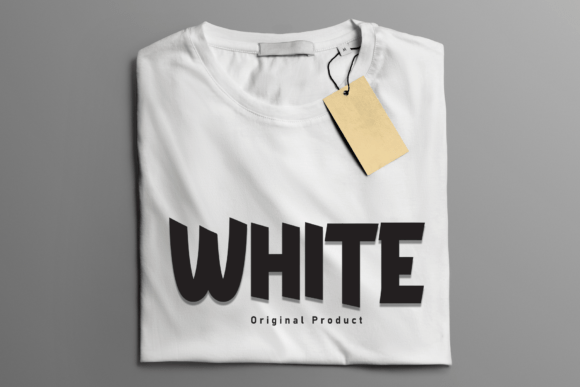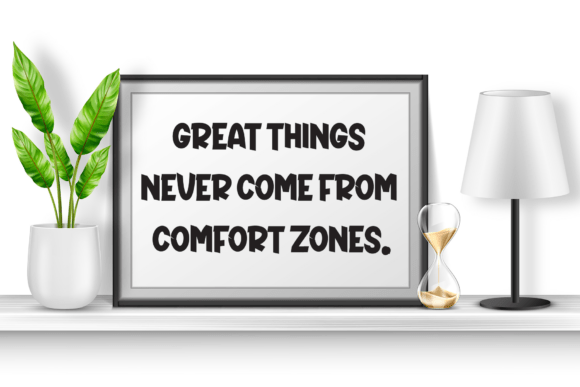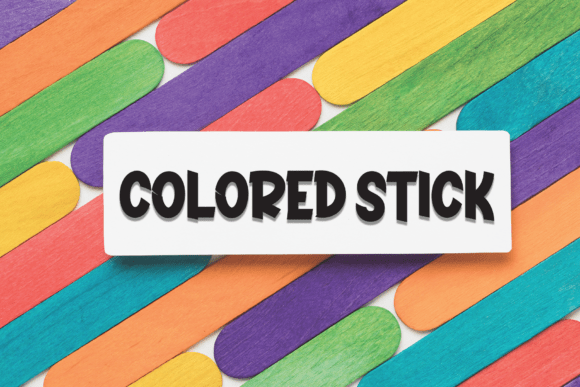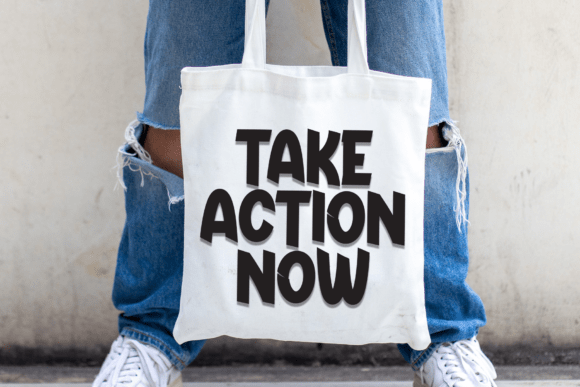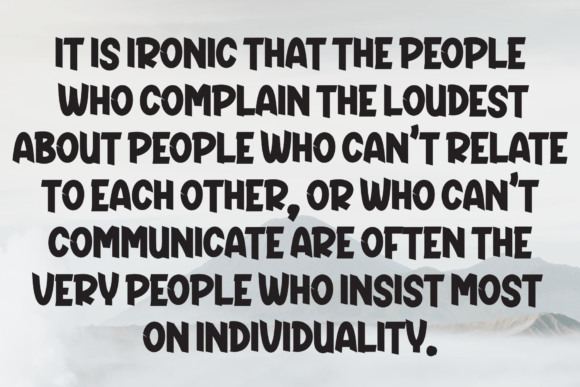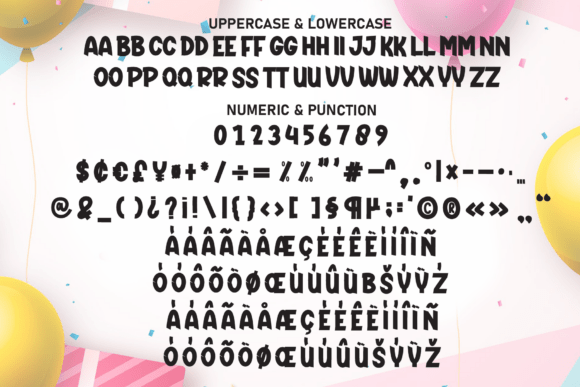
Introducing Happy Birthday Font: The Perfect Handwritten Display Font for Your Designs
Are you tired of using the same old fonts for your designs? Do you want to add a touch of personality and charm to your work? Look no further than Happy Birthday Font, a lively and full-of-personality display handwritten font that’s perfect for bold, eye-catching designs. In this article, we’ll take a closer look at what makes Happy Birthday Font so special and how you can use it to elevate your designs.
A Font that Brings the Charm of Natural Handwriting
Happy Birthday Font is a handwritten display font that brings the charm of natural handwriting to your designs. Its playful curves and casual style make it perfect for a variety of applications, from logos and posters to packaging, quotes, and social media graphics. With Happy Birthday Font, you can add a friendly, handcrafted feel to your work that’s sure to capture the attention of your audience.
Perfect Balance of Readability and Character
One of the standout features of Happy Birthday Font is its perfect balance of readability and character. The font is designed to be easy to read, even at larger sizes, making it perfect for headlines and titles. At the same time, it has a unique and playful character that adds personality to your designs. Whether you’re creating a logo, poster, or social media graphic, Happy Birthday Font is the perfect choice.
Happy Birthday Font is incredibly versatile and can be used for a wide range of design projects. Here are just a few ideas to get you started:
- Logos: Use Happy Birthday Font to create a unique and memorable logo for your business or brand.
- Posters: Create eye-catching posters for events, promotions, or advertising campaigns.
- Packaging: Add a personal touch to your product packaging with Happy Birthday Font.
- Quotes: Use Happy Birthday Font to create inspiring and motivational quotes for social media or print.
- Social Media Graphics: Create engaging social media graphics that stand out from the crowd.
Why Choose Happy Birthday Font?
So why choose Happy Birthday Font for your designs? Here are just a few reasons:
- Unique and Playful: Happy Birthday Font is a one-of-a-kind font that’s sure to add personality to your designs.
- Easy to Read: The font is designed to be easy to read, even at larger sizes.
- Versatile: Happy Birthday Font can be used for a wide range of design projects.
- Handcrafted Feel: The font has a friendly, handcrafted feel that’s perfect for adding a personal touch to your designs.
In conclusion, Happy Birthday Font is a lively and full-of-personality display handwritten font that’s perfect for designers and crafters looking to add a touch of charm and personality to their work. With its playful curves, casual style, and perfect balance of readability and character, Happy Birthday Font is the perfect choice for a wide range of design projects. So why wait? Download Happy Birthday Font today and start creating bold, eye-catching designs that capture the attention of your audience.